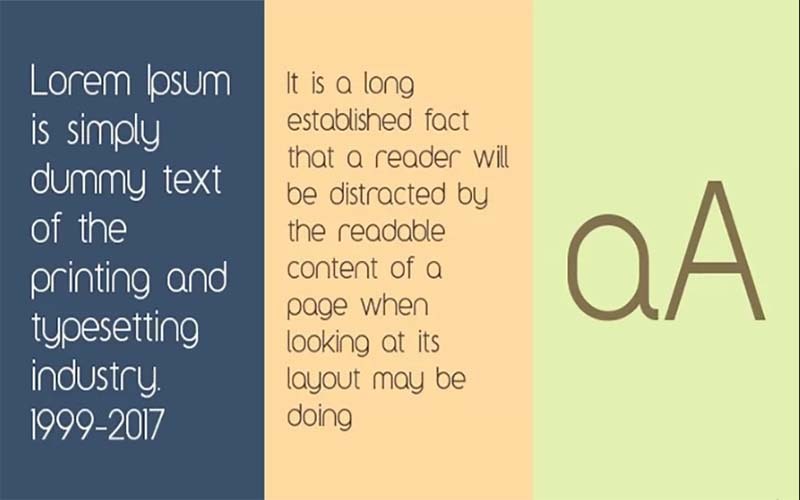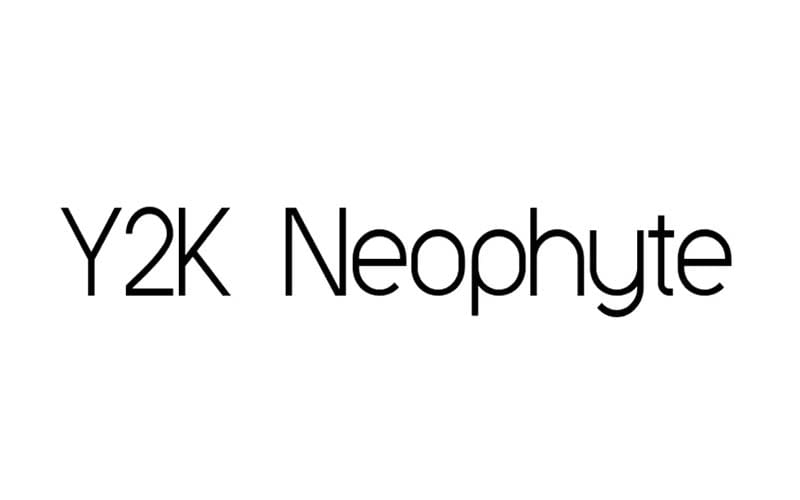
Y2K Neophyte Font is a sans serif and basic typeface that has an elegant and clean round texture that provides your text with a modern look. This amazing font was designed by Glitch and launched by Koen Hachmang.
This display typeface has come in two unique styles. It contains 164 characters and 161 unique glyphs. Its texture works elegantly with both lower case and upper case which is best for long text.
This font is perfect for various purposes such as brand logo designs, company names, official cards design, book covers, fashion magazines, social media posters, banners, book titles, flyers, and much more.
He has created it in a new way within a month. So, why this is a good font because all its characters are properly crafted with height, width, and space. We hope this font will help make a great design according to your need.
It has simple geometric lines that feature soft edges with a modern look. Hence, It makes perfect for modern times. If so, you can get many designs with their help.
You need to make solid plans to use it in your work. You will definitely use this beautiful font for many different projects. And make a great font pairing with serif and sans font families.